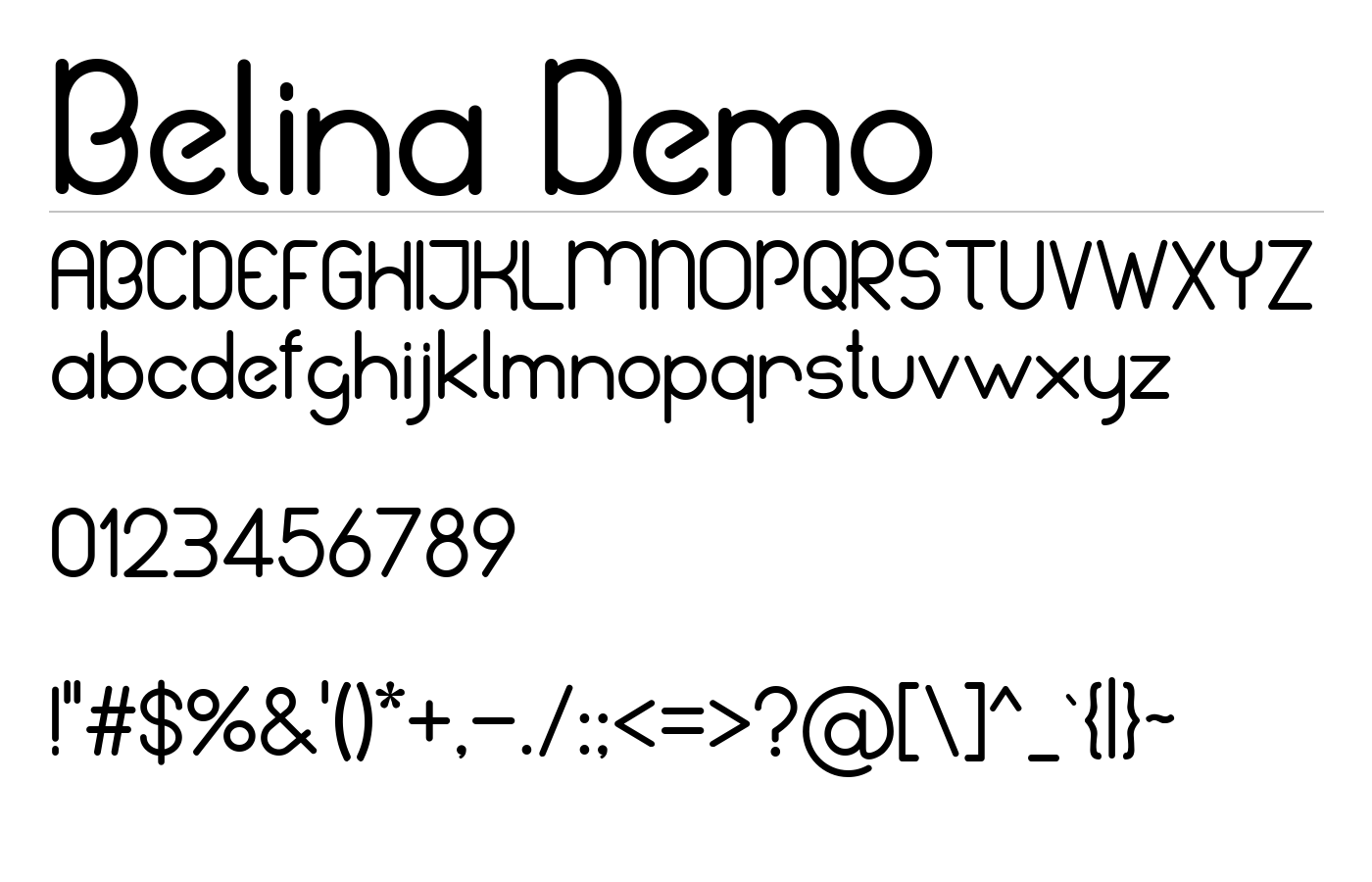
Belina Demo is a playful, modern sans serif font characterized by its rounded terminals and a sleek, geometric structure. Its light weight and generous spacing give it an airy, approachable feel, making it well-suited for creative projects, children’s books, or casual branding where a friendly and unique personality is desired. This font works best for headlines, logos, and display text where its quirky letterforms can stand out and engage viewers.
Belina Demo Font
About Belina Demo Font
| Font family | Belina Demo Font |